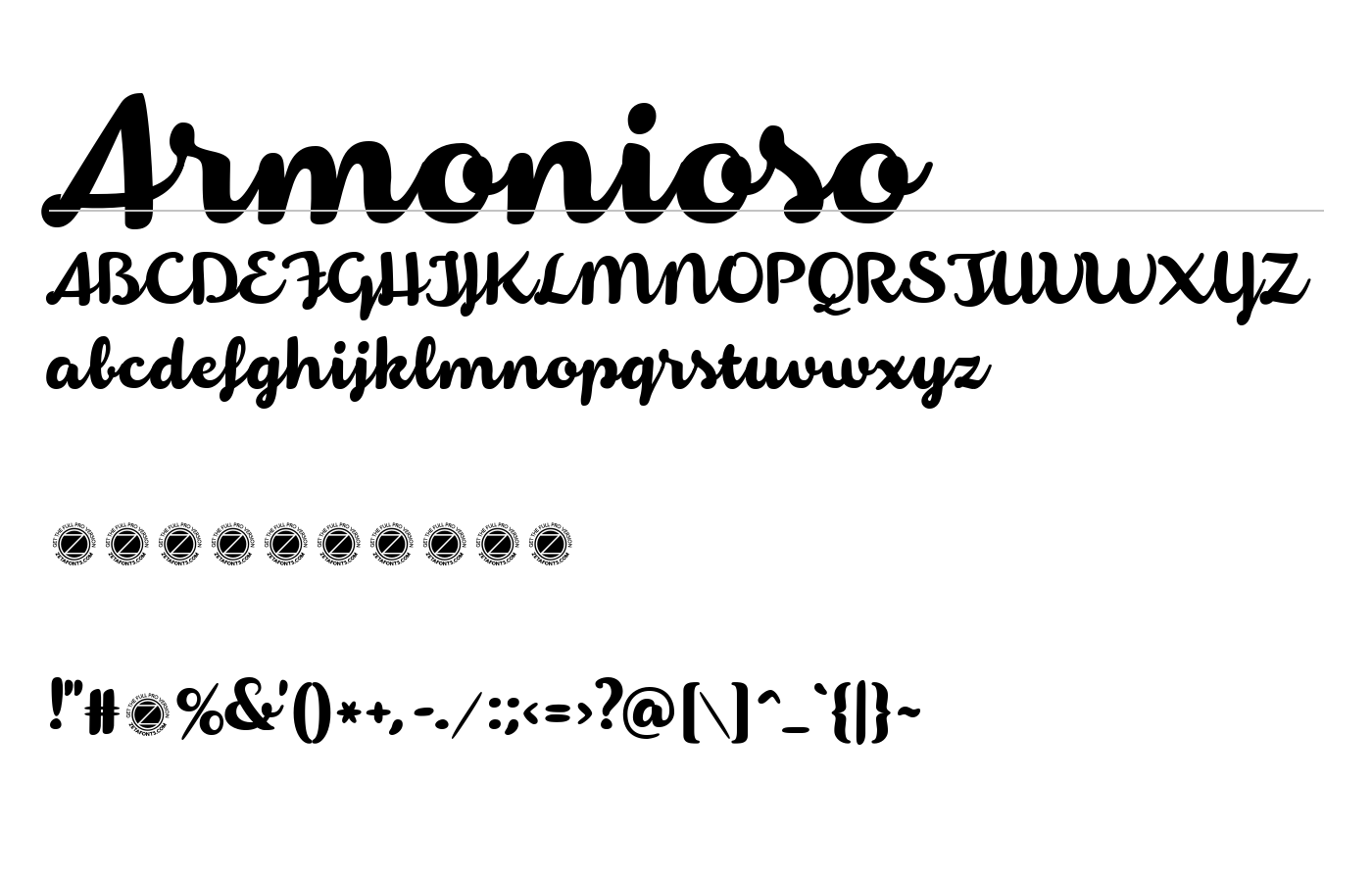
Armonioso is a bold script font with a lively and playful character, featuring smooth, rounded strokes that give it a friendly and approachable feel. Its moderately high x-height and connected letterforms make it well-suited for eye-catching headlines, branding, and packaging where a warm, handwritten touch is desired. This font works best in designs seeking to convey charm and personality while maintaining readability and a casual elegance.
Armonioso Font
About Armonioso Font
| Font family | Armonioso Font |
| Designer | Francesco Canovaro |